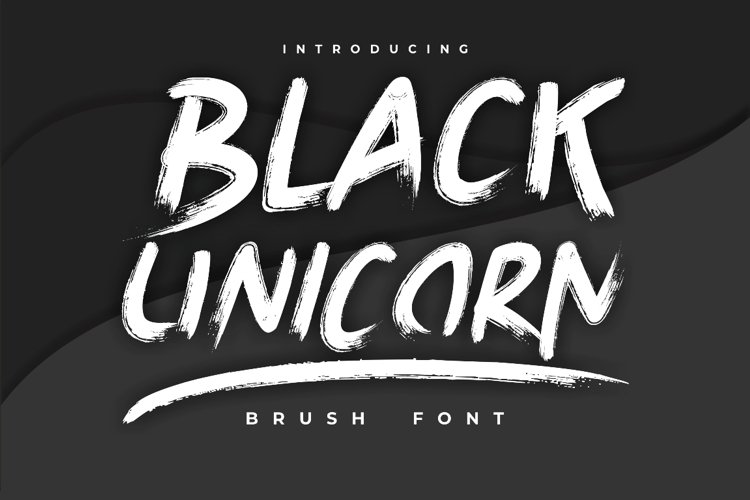
Black Unicorn
Black Unicorn Pro
Introducing Black Unicorn font, a captivating brush font that brings a touch of enchantment to your designs. With its abundance of alternate ligatures and swashes, this font truly emulates the beauty of your own handwriting. Simply type the underscore character multiple times to effortlessly access the swashes. Bring up swashes easily, just type the underscore character a few times.
Elevate your creative projects this season with Black Unicorn font. Whether you’re designing magical invitations, whimsical artwork, or captivating branding, this font is perfect for adding a touch of charm and elegance.
Unlock a world of possibilities with this versatile brush font. Its PUA encoding ensures easy access to all glyphs and swashes, allowing you to unleash your creativity effortlessly.